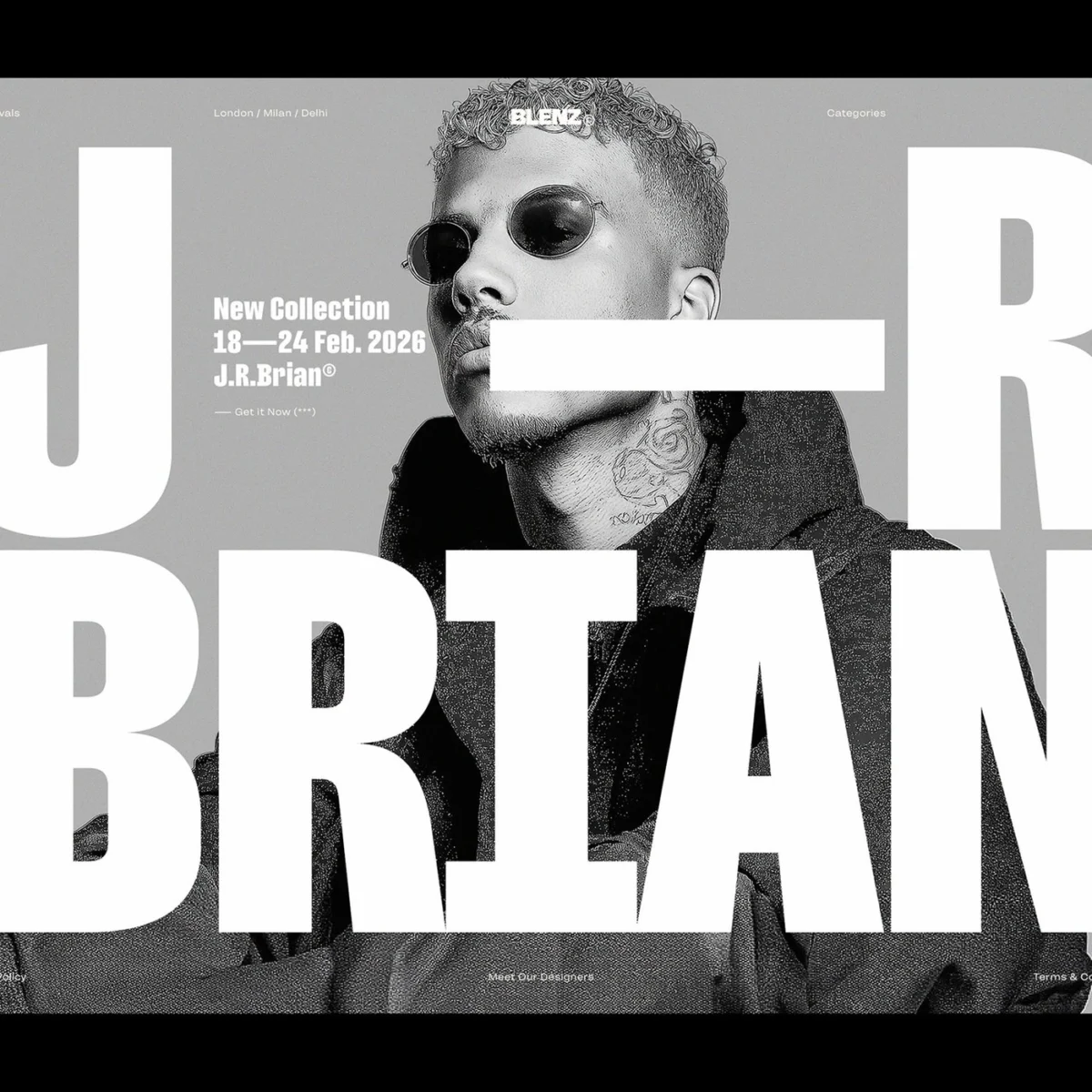
Leading type designer Rajesh Rajput has officially launched "Filming Typeface," a groundbreaking condensed display family featuring 18 distinct styles and advanced variable axes, set to redefine typography in the entertainment and design industries. Unveiled on September 4, 2026, this new offering from Rajput promises to deliver unparalleled visual impact and flexibility for a wide array of applications, most notably in cinematic branding and high-impact visual communication. The typeface is characterized by its powerful aesthetic: tall, narrow letterforms imbued with a striking vertical energy, designed to command attention while optimizing spatial efficiency.
From its initial conception, Filming Typeface was engineered as a tall display typeface, a design choice that imbues its letters with a tight, disciplined vertical presence. Each character’s narrow letter shape is meticulously crafted to pack significant visual weight into minimal horizontal space, making it an ideal solution for headlines, movie titles, and branding where space is at a premium but impact is paramount. The design features deep black ink fills for each tall stem, lending a sense of gravitas and permanence. Flat outer sides contribute to a clean, boxy profile, reinforcing a contemporary and sophisticated aesthetic. The deliberate use of small inner counters creates a sharp and dramatic contrast with the thick, assertive lines, a hallmark of its bold typography design. This stark visual interplay ensures movie titles and branding elements achieve a crisp, authoritative look that cuts through visual clutter. Straight stems anchor each character firmly to its baseline, conveying stability and strength, while the underlying solid geometry imbues each character with an assertive and unwavering tone. The clean edges of each condensed glyph maintain sharpness and clarity, guaranteeing legibility and visual integrity at any scale, from a small-screen graphic to a towering cinema poster.
The Vision Behind Filming: A Designer’s Journey
Rajesh Rajput, a name increasingly recognized within the global typography community for his innovative approaches to display type, embarked on the Filming Typeface project with a clear objective: to create a font family that would not only be visually arresting but also technologically advanced and supremely versatile. Rajput’s previous works, often characterized by a blend of classical influences and modern sensibilities, have consistently pushed the boundaries of functional aesthetics. For Filming, the inspiration reportedly stemmed from a desire to encapsulate the dramatic intensity and spatial constraints often found in film posters and title sequences. The design process, which spanned nearly two years, involved extensive research into the history of condensed typefaces, their psychological impact, and their evolution in digital media. Early sketches focused on maximizing verticality while retaining legibility, a challenging balance that required iterative refinement. Rajput utilized state-of-the-art font design software, such as Glyphs and FontLab, to meticulously craft each glyph, ensuring consistency across weights and styles. The development phase also included rigorous testing across various media—from high-resolution digital screens to diverse print substrates—to validate the typeface’s performance and visual integrity under real-world conditions. This meticulous approach underscored Rajput’s commitment to delivering a tool that is as robust as it is aesthetically compelling.
Anatomy of Impact: Deconstructing Filming Typeface’s Design Principles
The inherent power of Filming Typeface lies in its carefully considered design principles, which collectively contribute to its distinctive aesthetic and functional prowess. The "tight vertical energy" is not merely a stylistic choice but a strategic one, allowing designers to convey urgency, modernity, and sleekness. This verticality is expertly balanced by the substantial "deep black ink" weight, which prevents the condensed forms from appearing weak or thin. Instead, they exude a formidable presence. The "clean boxy profile" with its flat outer sides speaks to a minimalist yet strong design philosophy, aligning with contemporary trends that favor clarity and geometric precision. This stark, almost architectural quality ensures that the typeface integrates seamlessly into modern design layouts, providing a stable and commanding foundation.
The ingenious use of "small inner counters" in contrast with the "thick lines" is a critical element in establishing the typeface’s unique character. This high contrast not only enhances legibility, particularly at smaller sizes or in complex visual environments, but also adds a dynamic tension to the letterforms. It’s this thoughtful juxtaposition that gives Filming Typeface its crisp, almost chiseled appearance, making it particularly effective for conveying the sharp, dramatic narratives often associated with cinema. The "straight stems" and "solid geometry" contribute to the typeface’s "assertive tone," projecting confidence and unwavering stability. This structural integrity ensures that regardless of the weight or style chosen, the typeface maintains a consistent visual language that is both reliable and impactful. The commitment to "clean edges" further ensures that each condensed glyph remains "sharp and clear" across all scales, from the smallest footnote to the largest billboard, preventing any loss of definition that can plague less meticulously crafted condensed fonts.
The Power of Adaptability: Embracing Variable Font Technology
A cornerstone of Filming Typeface’s advanced capabilities is its integration of variable font technology, representing a significant leap forward in type design. The type family contains 18 distinct styles, meticulously distributed across nine weights, ranging cleanly from delicate thin hairline styles to formidable heavy black forms. This extensive range provides art directors and designers with an unprecedented degree of freedom in both print and digital applications. Beyond the fixed styles, the true innovation lies in the ability for designers to precisely shift weight along a smooth variable axis. This means that instead of being confined to predefined weights, designers can choose any intermediate weight, allowing for incredibly granular control over typography and subtle adjustments that perfectly match their visual intent.
Variable fonts, first introduced in the OpenType 1.8 specification, have revolutionized font handling by consolidating an entire type family into a single, compact font file. This dramatically reduces file sizes, a critical advantage for web performance and digital applications, while simultaneously enhancing creative possibilities. For Filming Typeface, this flexibility ensures that the font maintains its crisp edges and distinctive character on screens of any size, from high-resolution cinema displays to mobile devices. The tight letter spacing inherent in its condensed design, combined with variable axis control, allows designers to fit long words and phrases into narrow spaces without compromising readability or aesthetic appeal. This expressive typography design scales effortlessly from the intimate confines of book jackets to the grand expanses of large-format posters, making it an indispensable tool for impactful communication. Heavy headlines crafted with Filming Typeface lock together into tight, visually cohesive blocks, while clean vertical stems align perfectly along a tight modular grid. This precision ensures that even secondary text blocks can be harmoniously aligned with giant titles, creating clear visual hierarchies that guide the eye across complex poster pages and editorial layouts. The integration of variable font technology positions Filming Typeface not just as a font, but as a dynamic typographic system, ready for the evolving demands of modern design. The global market for variable fonts has seen significant growth, with adoption rates steadily climbing as designers recognize their efficiency and creative potential. According to recent industry reports, variable font usage on the web increased by over 30% in the last year alone, underscoring the relevance and forward-thinking nature of Rajput’s latest offering.
Crafting Cinematic Narratives: Applications in Film and Beyond
Filming Typeface is explicitly tailored for the demanding world of cinematic branding and visual storytelling, a domain where typography plays a crucial role in establishing mood, genre, and overall aesthetic. Its bold, condensed nature makes it exceptionally suited for movie titles, where legibility and impact must be achieved rapidly, often against complex photographic or illustrative backgrounds. The typeface’s ability to project an "assertive tone" and "crisp look" is invaluable for conveying the gravitas of a drama, the urgency of a thriller, or the sleekness of a sci-fi epic. Historically, condensed typefaces have been favored in film posters for their ability to maximize information within limited space while maintaining a strong visual presence. Iconic film titles from the golden age of Hollywood to contemporary blockbusters have leveraged the power of condensed letterforms to create lasting impressions. Filming Typeface builds upon this legacy, offering a modern interpretation with enhanced technical capabilities.
The extensive collection of printed specimen sheets accompanying the launch provides compelling evidence of the typeface’s versatility and power. These sheets showcase Filming Typeface set against dark film scenes, with large letters dramatically positioned over high-contrast portraits, creating striking visual narratives. The interplay of dark cinematic backdrops and the sharp typography frames each word with a powerful, almost tangible presence. Deep shadows on the page give these scenes strong depth, illustrating how the typeface interacts with complex imagery to enhance visual storytelling. Furthermore, test sheets demonstrating the glyphs on rough paper textures, as well as bright white letters on dark cloth and shirts, underscore its robustness across various physical applications. The rich black ink marks every line with crisp clarity, and screen-printed sheets reveal tight letter gaps without any ink bleed, a testament to its meticulous design and suitability for demanding production processes. This fusion of raw graphic power with clean craftsmanship, highlighted by the tall letter stems, ensures that Filming Typeface is not merely a display font but a comprehensive typographic solution for dynamic visual communication.
Beyond its primary cinematic focus, Filming Typeface holds immense potential for other high-impact design areas. In editorial design, its ability to create strong headlines and maintain legibility in condensed formats makes it ideal for magazine covers and article titles. For corporate branding and advertising, its assertive tone can convey authority, modernity, and precision. Its clean geometry and clear edges also make it a strong candidate for digital interfaces and app design, where space is often constrained, but visual clarity is paramount. The typeface’s adaptability across print and digital media, coupled with its variable font capabilities, positions it as a highly versatile asset for graphic designers, branding agencies, and creative studios seeking to make a bold statement.
The introduction of Filming Typeface is anticipated to influence broader typography trends, potentially inspiring a resurgence of interest in highly condensed, impactful display fonts that leverage the full capabilities of variable font technology. Its emphasis on strong geometry, tight spacing, and dramatic contrast provides a blueprint for future developments in the field. As digital platforms continue to evolve and demand more dynamic and efficient typographic solutions, fonts like Filming Typeface, with their inherent flexibility and striking visual presence, are poised to become indispensable tools for designers worldwide. Rajput’s latest work not only solidifies his position as an innovator in type design but also contributes a powerful new voice to the global typographic landscape, promising to shape visual communication for years to come.